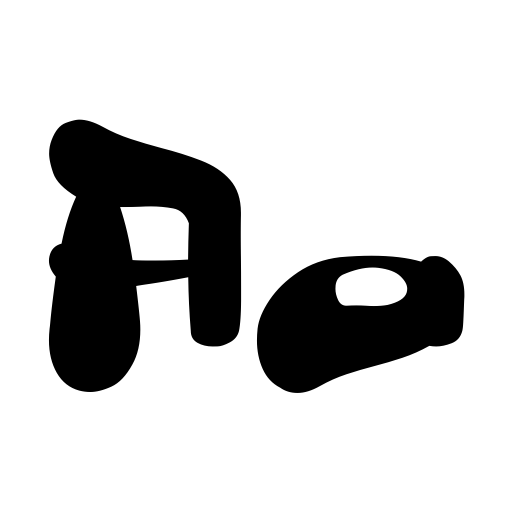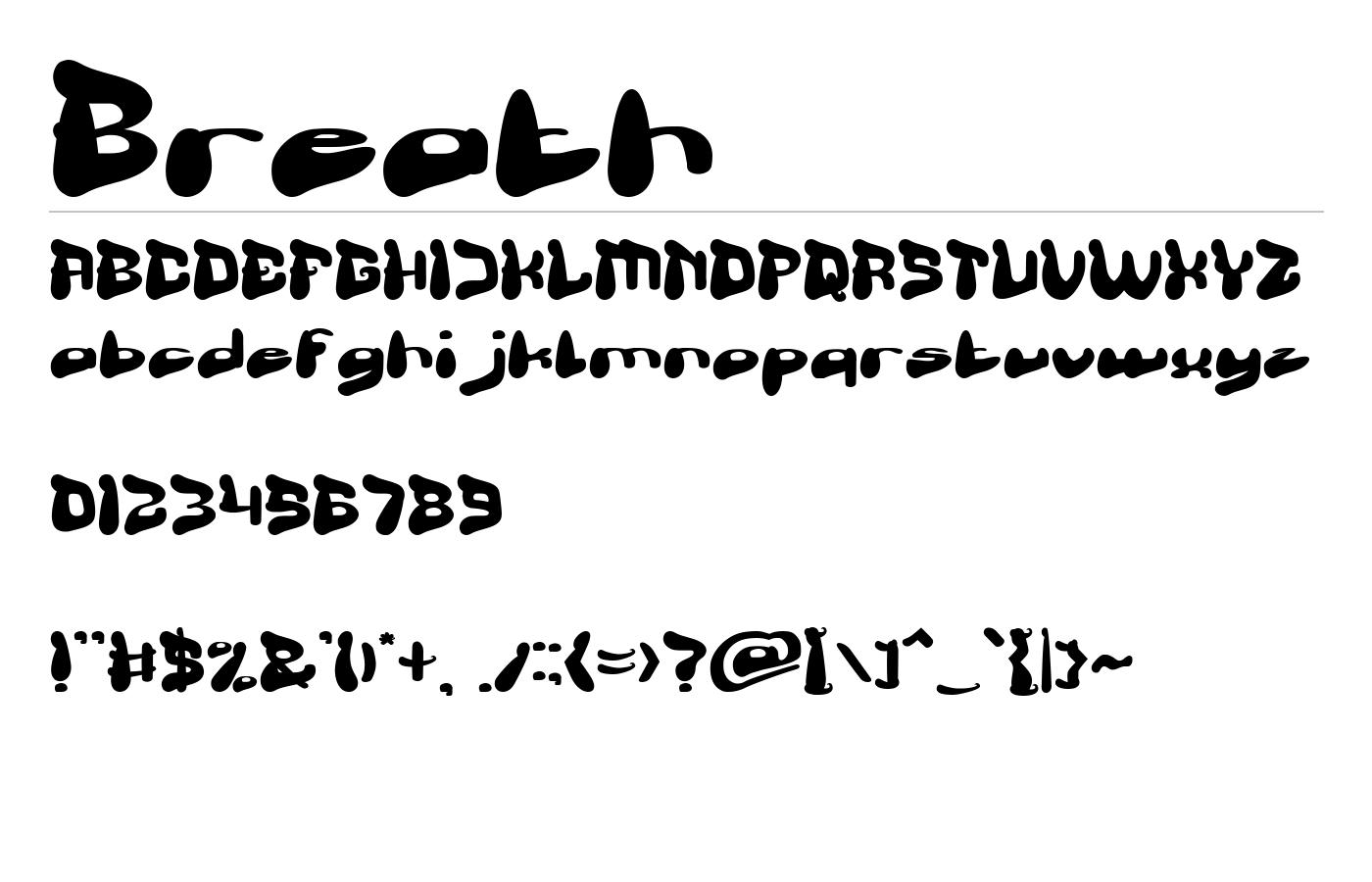
Breath is a playful, bold display font with a quirky, hand-drawn feel characterized by its irregular, rounded shapes and high stroke contrast. Its unique, chunky letterforms and informal style make it perfect for creative branding, posters, and children’s content where a fun and energetic vibe is desired. This font works best in headlines or decorative uses, adding personality and a casual charm to any design.
Breath Font